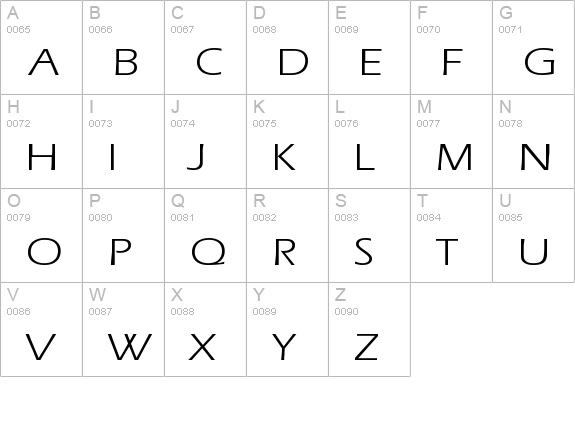
Eric Wide Normal is the standard, neutral, extended-width variant in the Eric typeface family \xE2\x80\x94 well suited to general body text, paragraphs, and standard typographic work.
Eric Wide Normal font is a versatile typeface that combines modern simplicity with a touch of elegance. With its wide, clean lines and balanced proportions, this font is perfect for a wide range of design projects. Whether you're creating a sleek website, designing a professional brochure, or crafting a stylish logo, Eric Wide Normal font will surely make your text stand out. The best part is that Eric Wide Normal font is available for free download at FontsMarket.com. So, you can easily access this high-quality typeface without any cost. Don't miss out on the opportunity to enhance your designs with this beautiful and stylish font. Download Eric Wide Normal today and elevate your typography game!